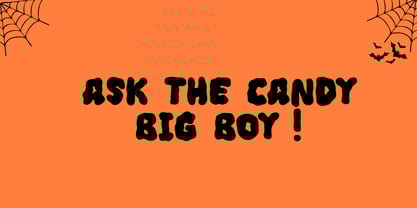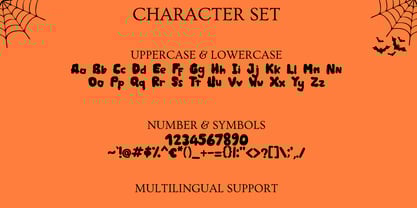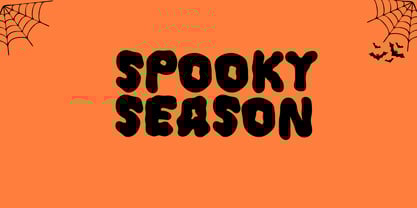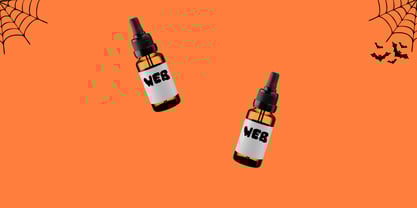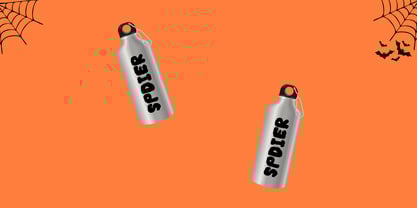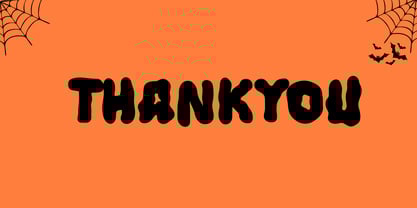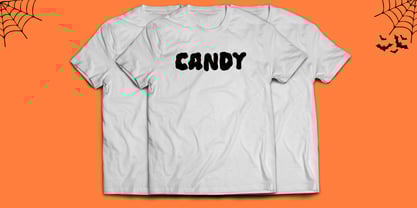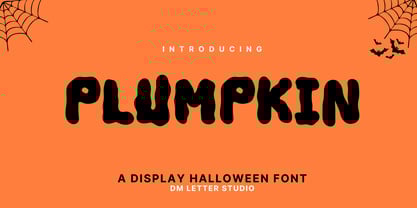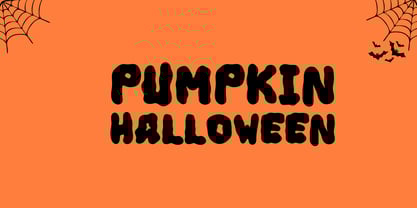
Meet Plumpkin Font
Plumpkin Font is a chunky, cheerful display with cozy fall charm. Letters feel round and friendly. Strokes stay bold for fast reading on mobile and print. Because the shapes echo pumpkins and candy, your words look warm the instant they appear. Use it for Halloween tees, autumn signs, party invites, stickers, mugs, and Etsy thumbnails. Moreover, the plumpkin font pairs well with clean sans serifs, so layouts stay tidy and bright.
Where Plumpkin Font shines
Set short phrases like “Pumpkin Patch,” “Boo Crew,” “Hello Fall,” or a child’s name. Then add outlines, sticker borders, or soft shadows for a puffy print look. Since spacing is tuned for headlines, posters and thumbnails come together in minutes. As a result, you can launch full seasonal bundles for markets, classrooms, and family events with less editing. Plus, the rounded rhythm keeps titles clear on small tags and labels.
Design tips for the plumpkin font
Keep copy short and let the letterforms lead. Pair big Plumpkin headlines with a simple geometric sans for captions and prices. Meanwhile, add tiny stars, leaves, or candy icons around the type for quick sets. Because the forms are thick and friendly, glitter textures, grain, and gentle glow work very well. However, avoid long sentences on tiny labels. Names, dates, and punchy phrases deliver the strongest impact.
Why creators choose Plumpkin
You want cute fall energy with clean readability. The plumpkin font delivers. It grabs attention in crowded feeds, speeds production, and scales from mini stickers to porch posters without losing charm.
Plumpkin